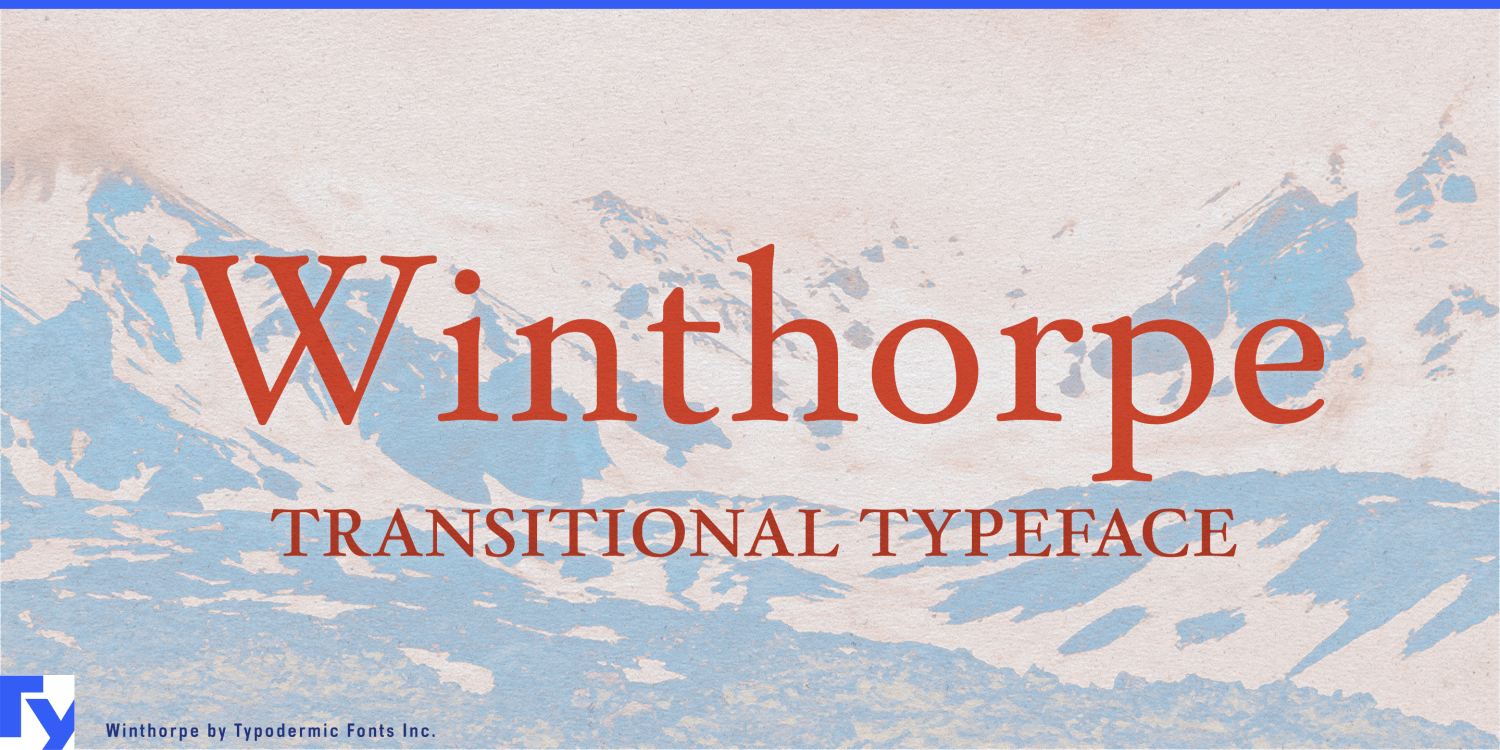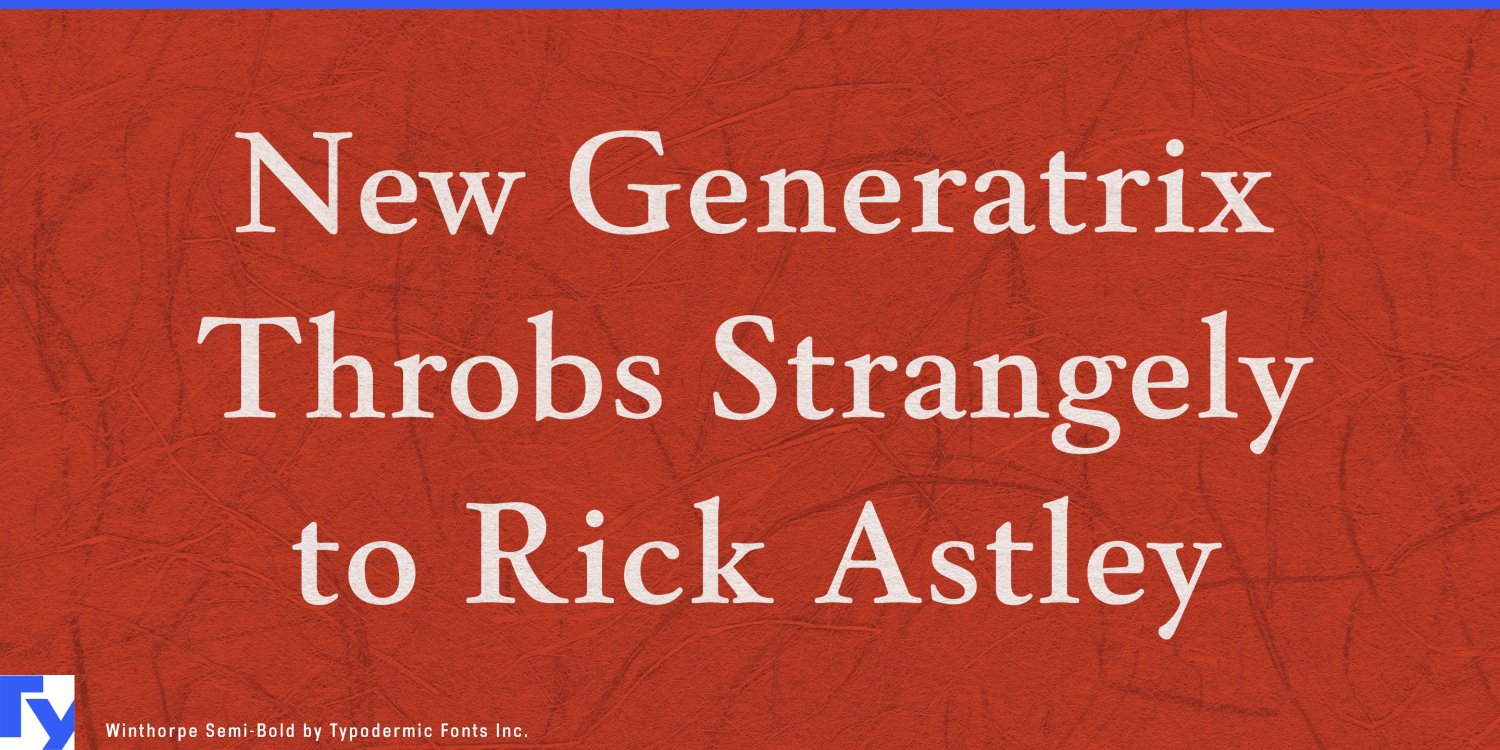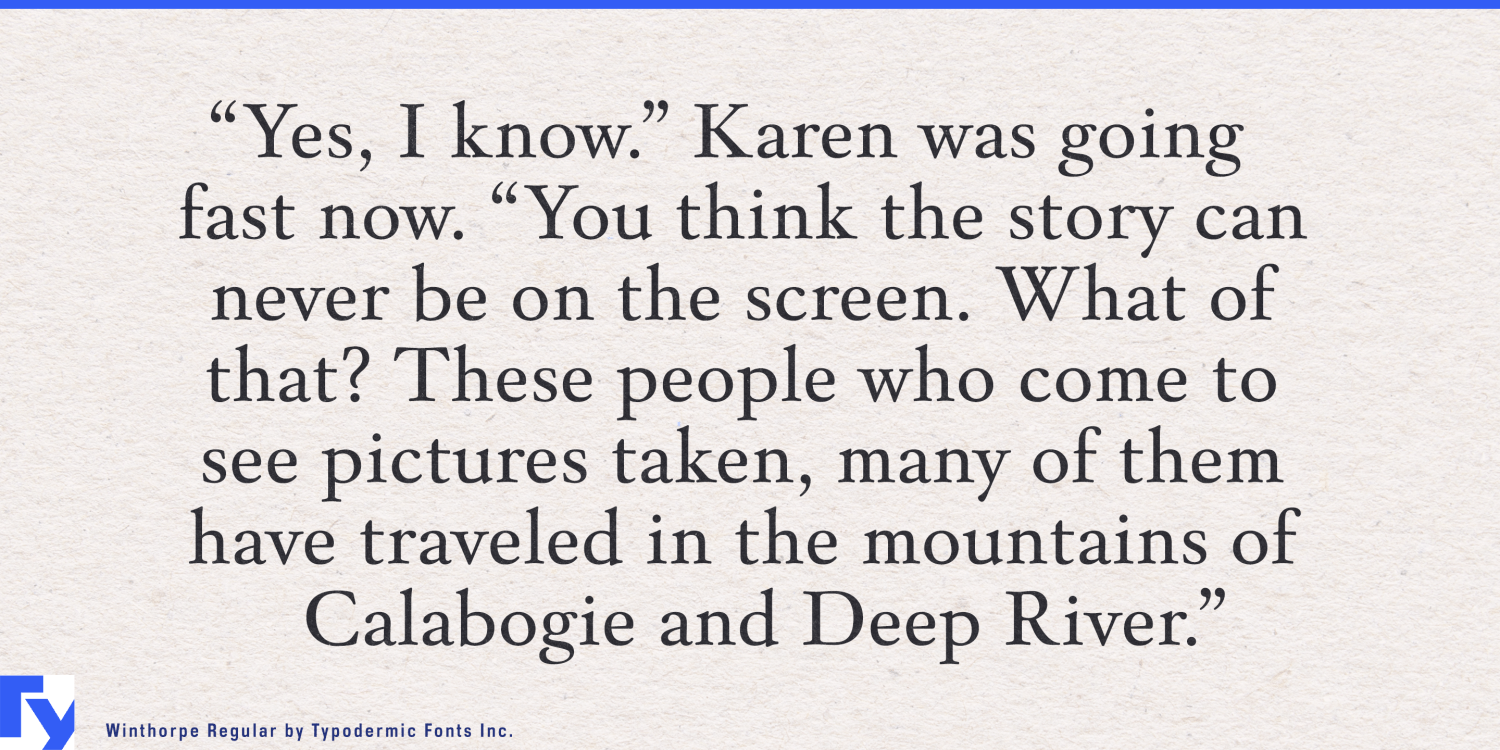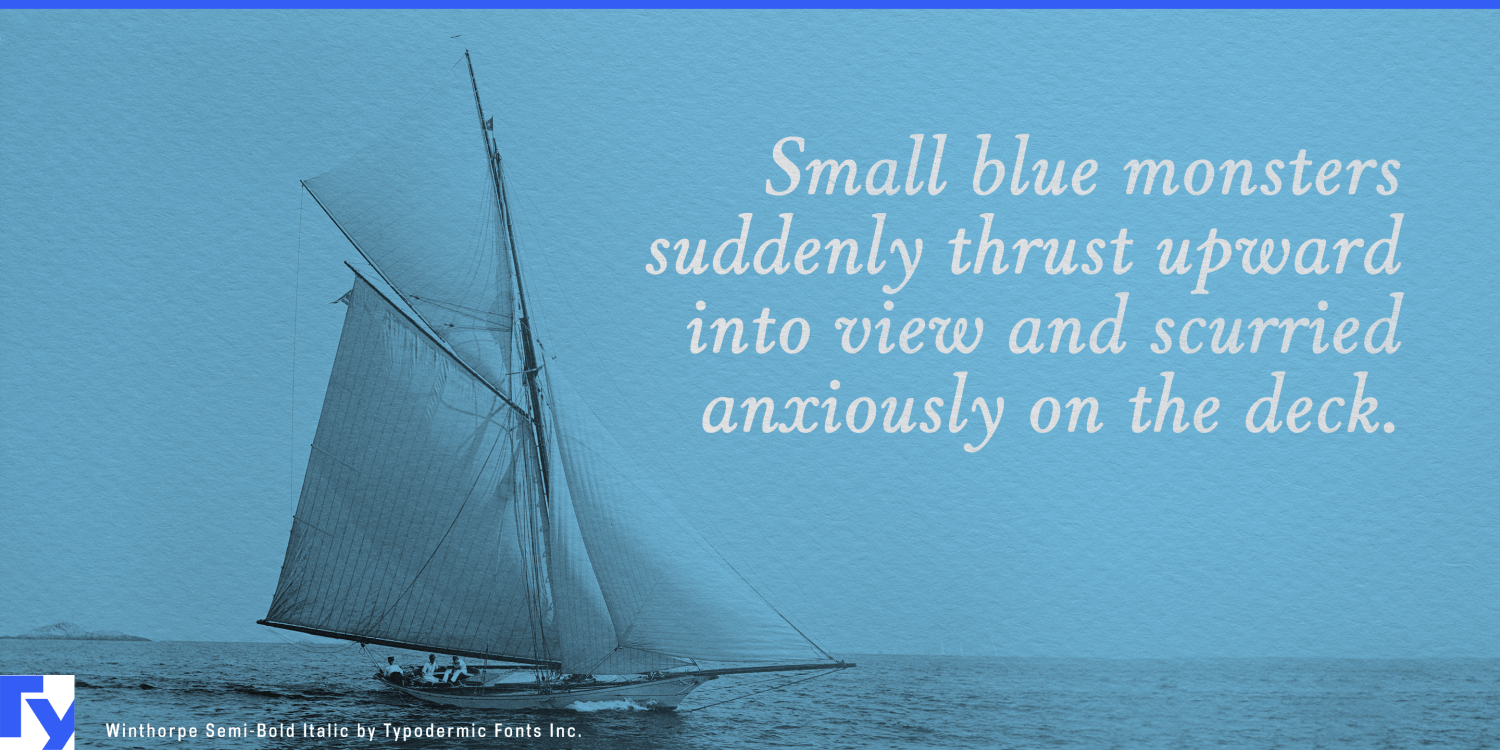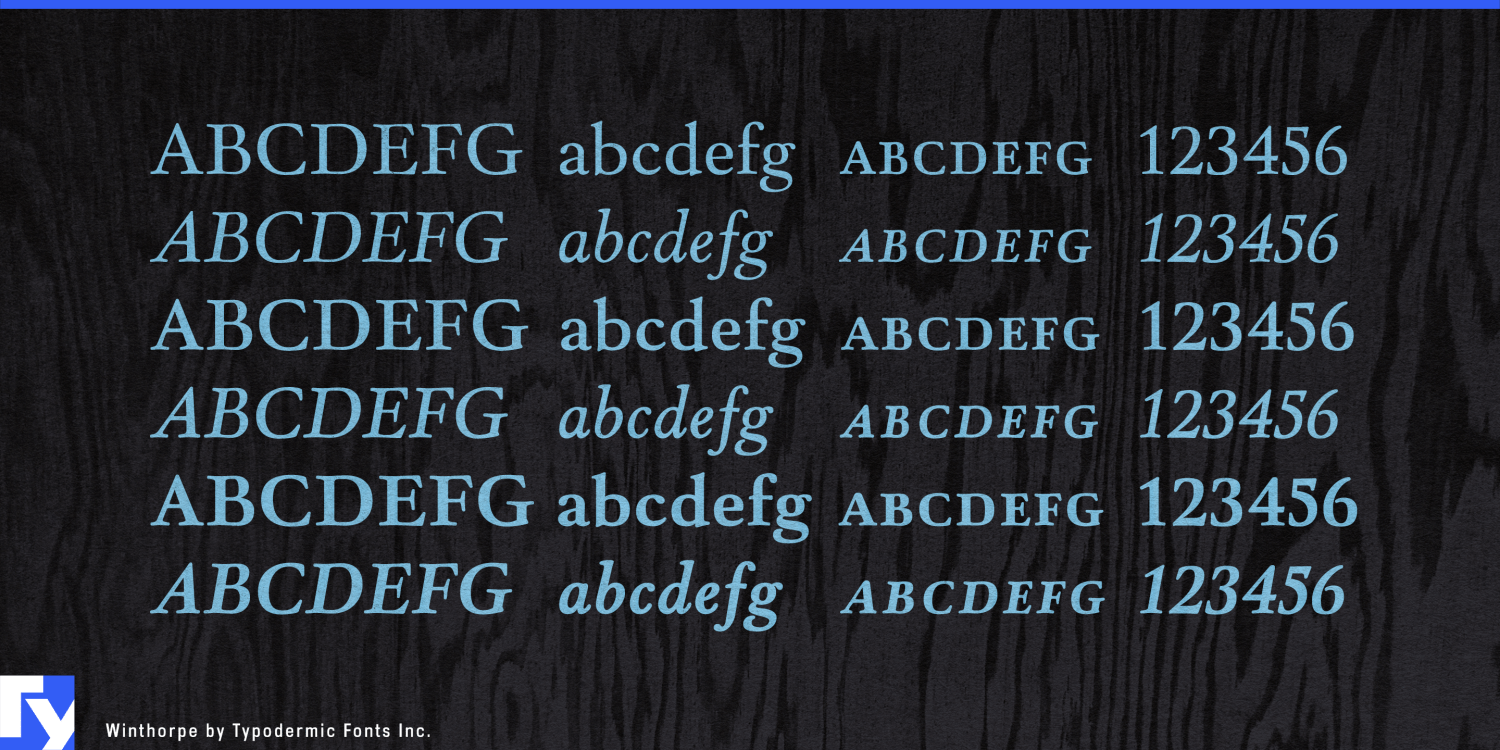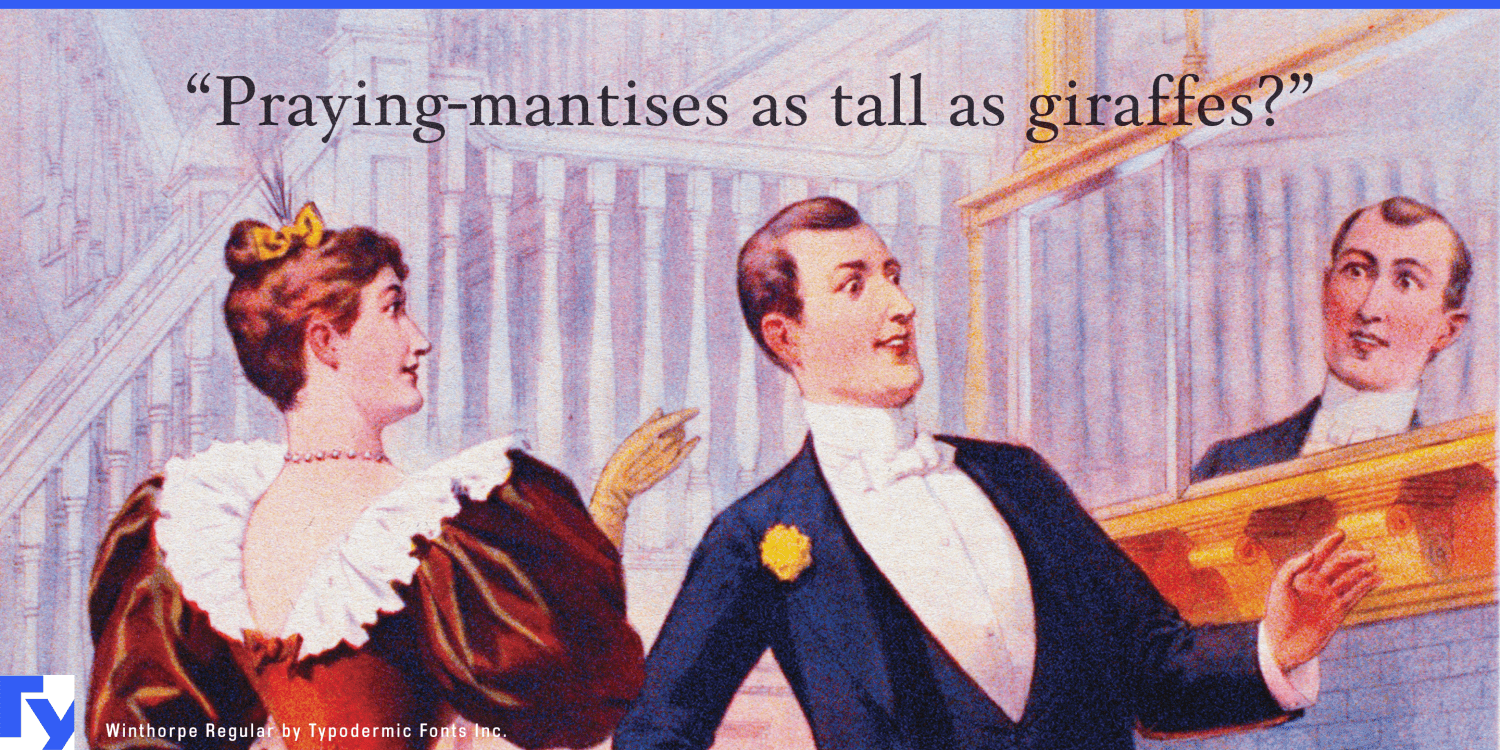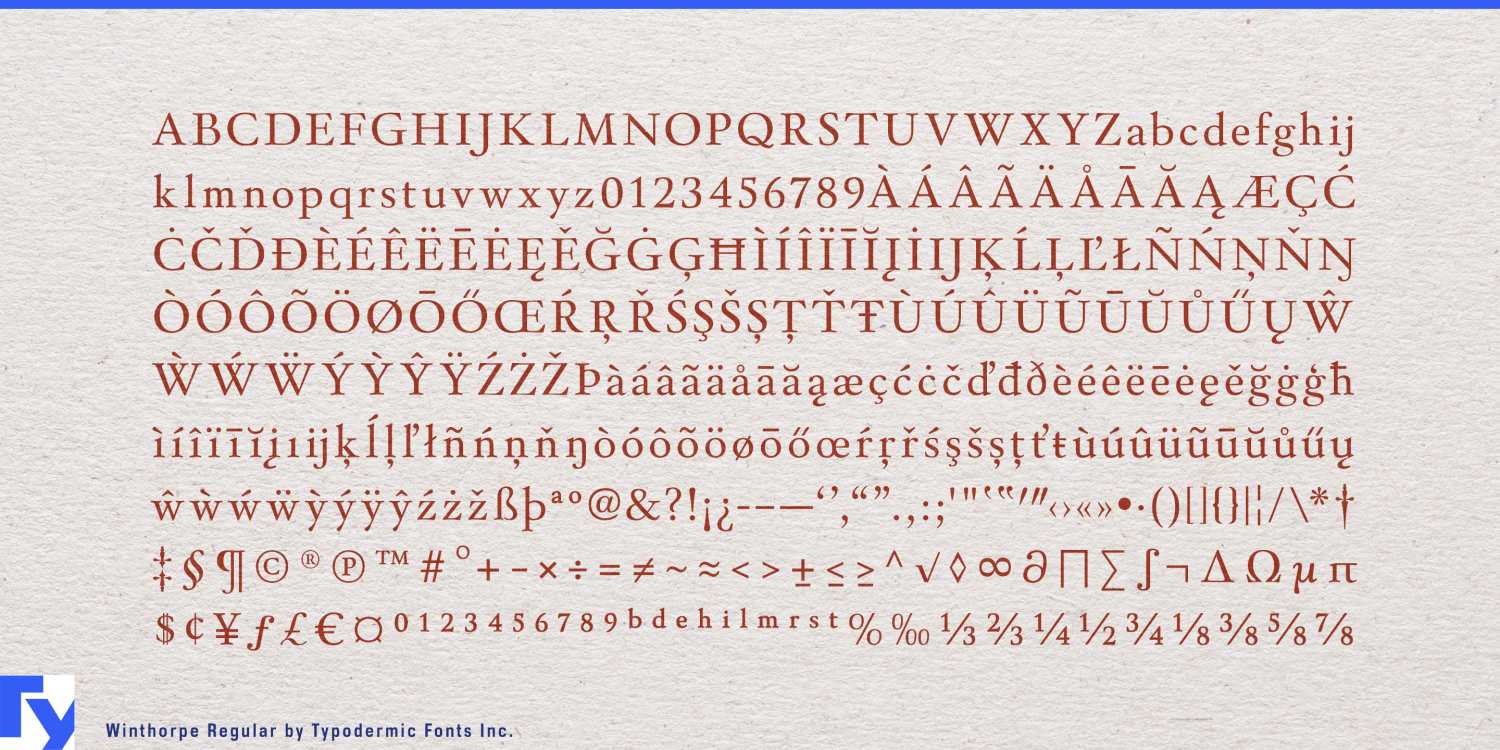
Winthorpe
A new institution sometimes needs to look established before it has accumulated much history. Private clubs, auction houses, family offices, foundations, and hospitality groups all depend on typography that can support formal hierarchy without making the identity look conspicuously new. Winthorpe provides that framework with a transitional serif design developed across roman, italic, and dedicated small-cap styles in Regular, Semi Bold, and Bold.
That makes it especially useful for private clubs and membership-based hospitality. A newly opened club may need a name for the building, dining rooms, lounges, seasonal programs, house publications, event invitations, member cards, and environmental graphics while maintaining a consistent institutional tone. Winthorpe’s romans can carry the principal identity; italics can distinguish programs and secondary information; small caps provide a natural hierarchy for room names, departments, dates, and formal headings.
Auction houses and specialist dealers face a similar problem. The objects being presented may already carry strong visual and historical character, so the surrounding typography needs authority without competing for attention. Winthorpe can handle auction titles, collection names, provenance headings, catalog dividers, private-view invitations, lot-section openers, and exhibition-wall graphics. Its small caps are especially useful for names, dates, categories, and other formal distinctions.
Family offices, private investment partnerships, and foundations can use the same restrained structure for report covers, investment letters, donor publications, estate-planning presentations, and institutional headings. A practical companion face can handle tables, figures, and dense text while Winthorpe establishes the formal layer around them.
Hospitality projects with an institutional character provide another natural setting. Restored hotels, members’ lounges, private dining clubs, and long-stay properties may need typography for house names, salons, libraries, dining rooms, event calendars, and printed programs that feels more established than contemporary boutique branding.
The same qualities make Winthorpe useful for fictional institutions in film, television, and games. Private banks, universities, foundations, auction houses, clubs, estates, and family corporations often require stationery, annual reports, donor walls, account statements, certificates, menus, invitations, plaques, and internal publications that all appear to come from the same organization.
Winthorpe works best where typography needs to imply continuity, structure, and an established house style. Its romans provide the main institutional voice; italics add distinction and emphasis; dedicated small-cap styles handle the formal hierarchies that appear naturally in clubs, auction catalogs, financial publications, hospitality programs, and fictional establishments.